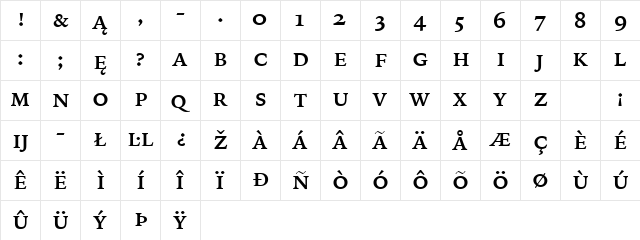
IowanOldSt SmCap BT Bold Small Cap
Design Context for IowanOldSt SmCap BT Typeface
IowanOldSt SmCap BT is a composed and adaptable typeface that performs quietly and consistently across a wide range of design contexts. The heavy weight commands attention and anchors typographic hierarchies.